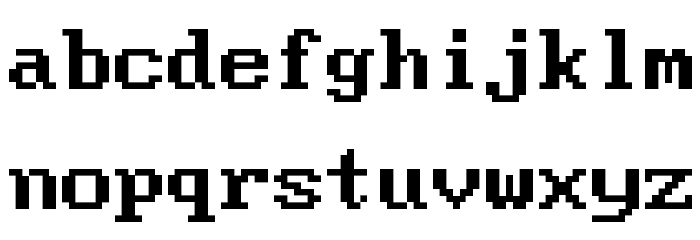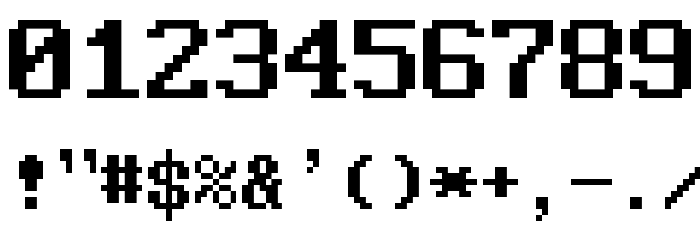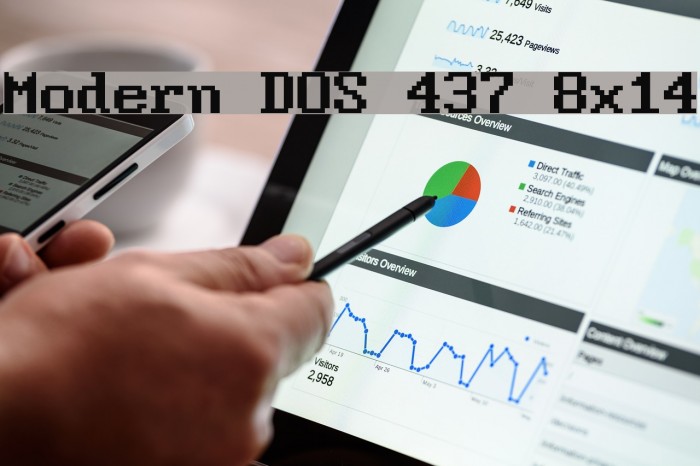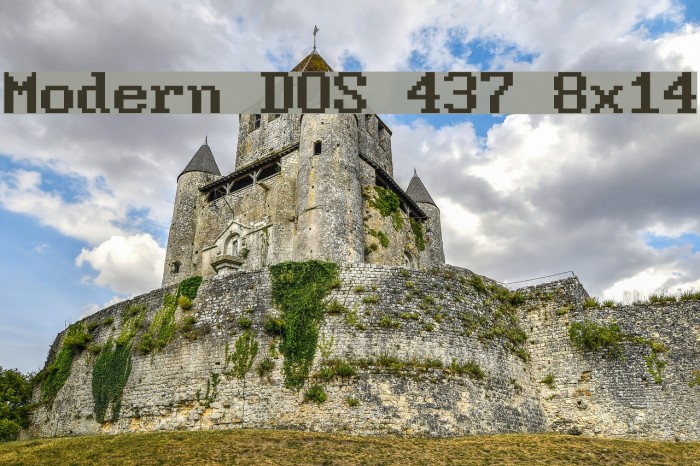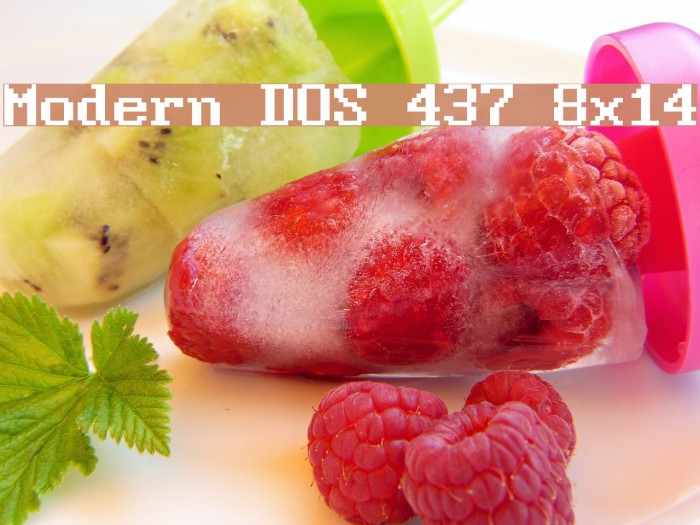
Modern DOS 437 8x14 Font
This font is a pixelated, monospaced typeface reminiscent of classic computer and console displays. Each character is designed with a uniform width and height, creating a consistent and structured appearance. The characters are bold and blocky, with a distinct retro aesthetic that evokes the early days of digital typography. The uppercase and lowercase letters maintain a similar width, enhancing the monospaced nature of the font. Numbers and special characters are equally bold and clear, making them easily distinguishable. This style is ideal for projects that aim to capture a vintage digital or gaming feel.
A pixelated, monospaced typeface with a retro digital aesthetic.
- Proposed Projects: Ideal for retro gaming designs, digital art projects, coding environments, and nostalgic branding.
- Overall Style: Vintage
- Use Case: Headlines, Coding, Digital displays